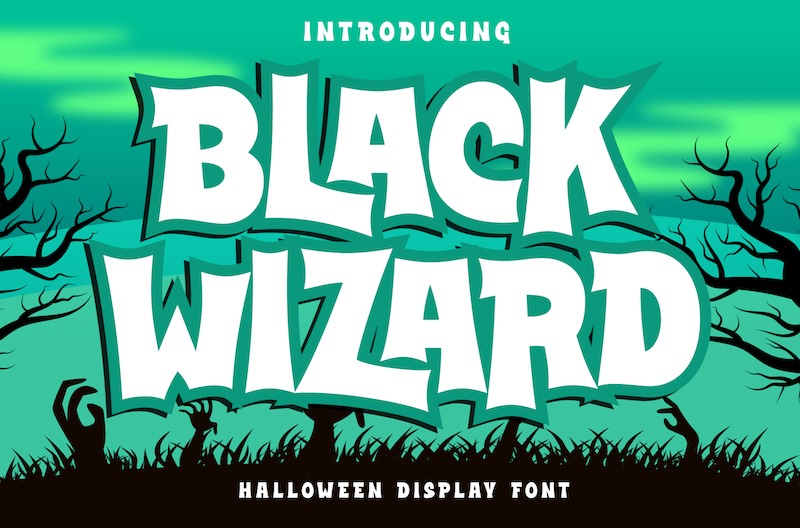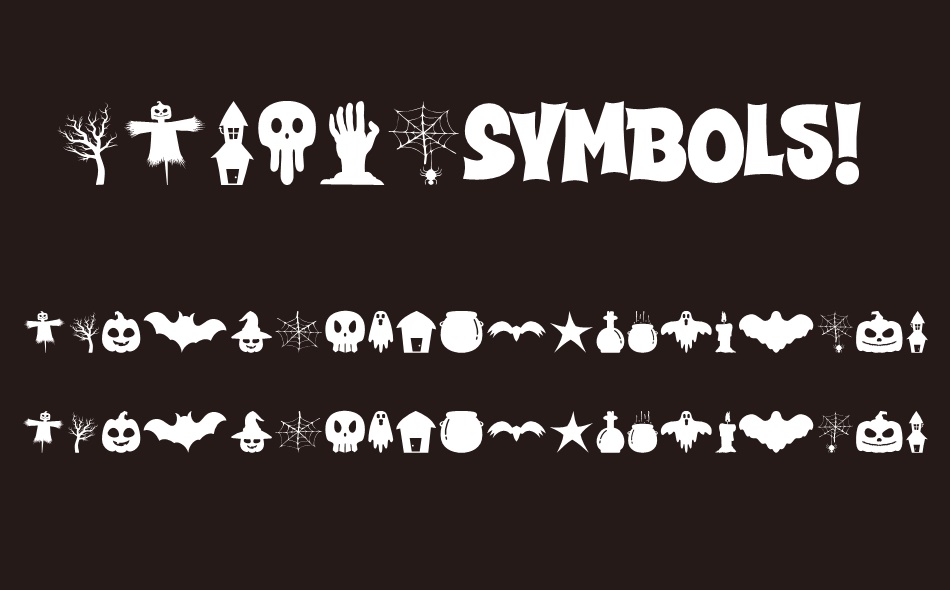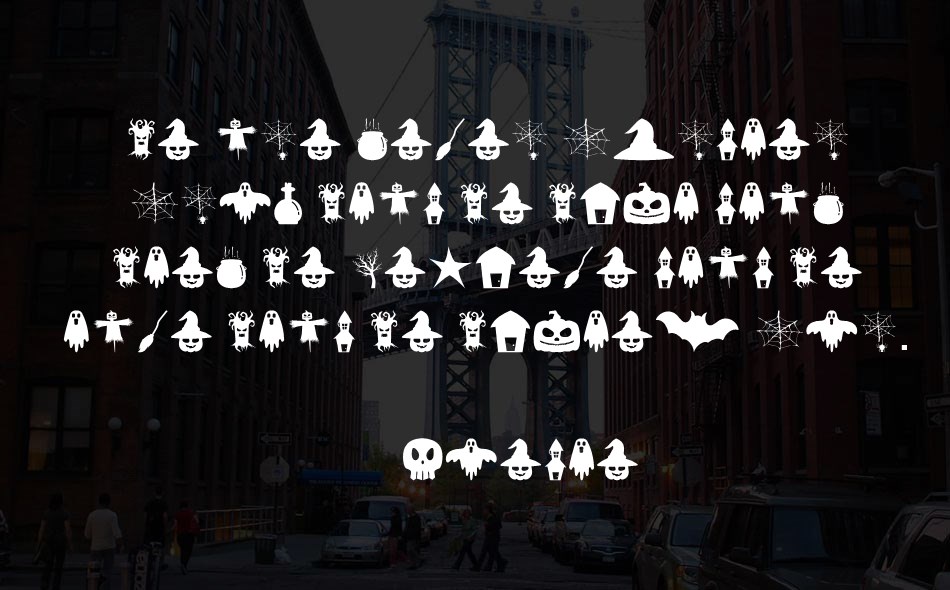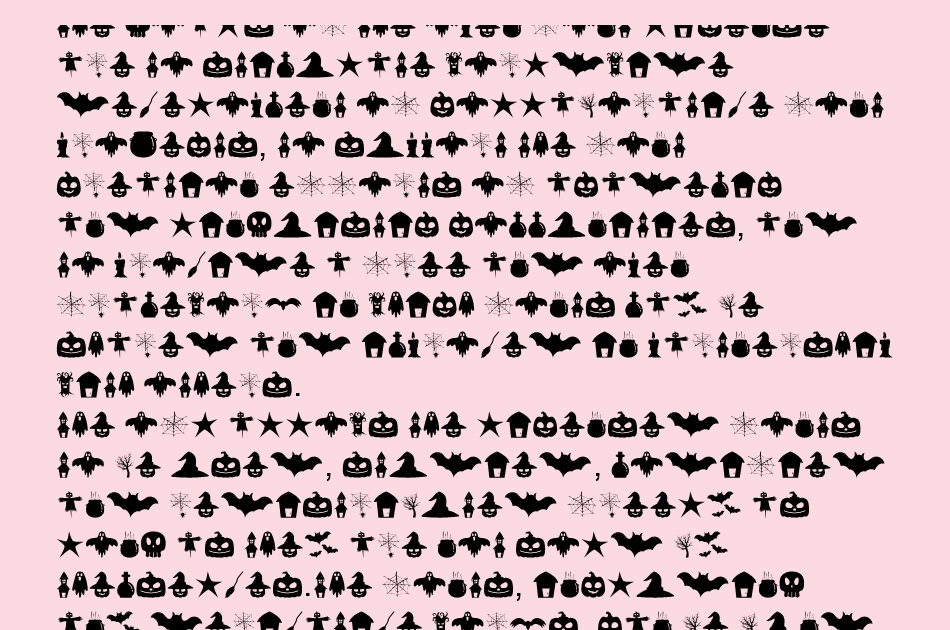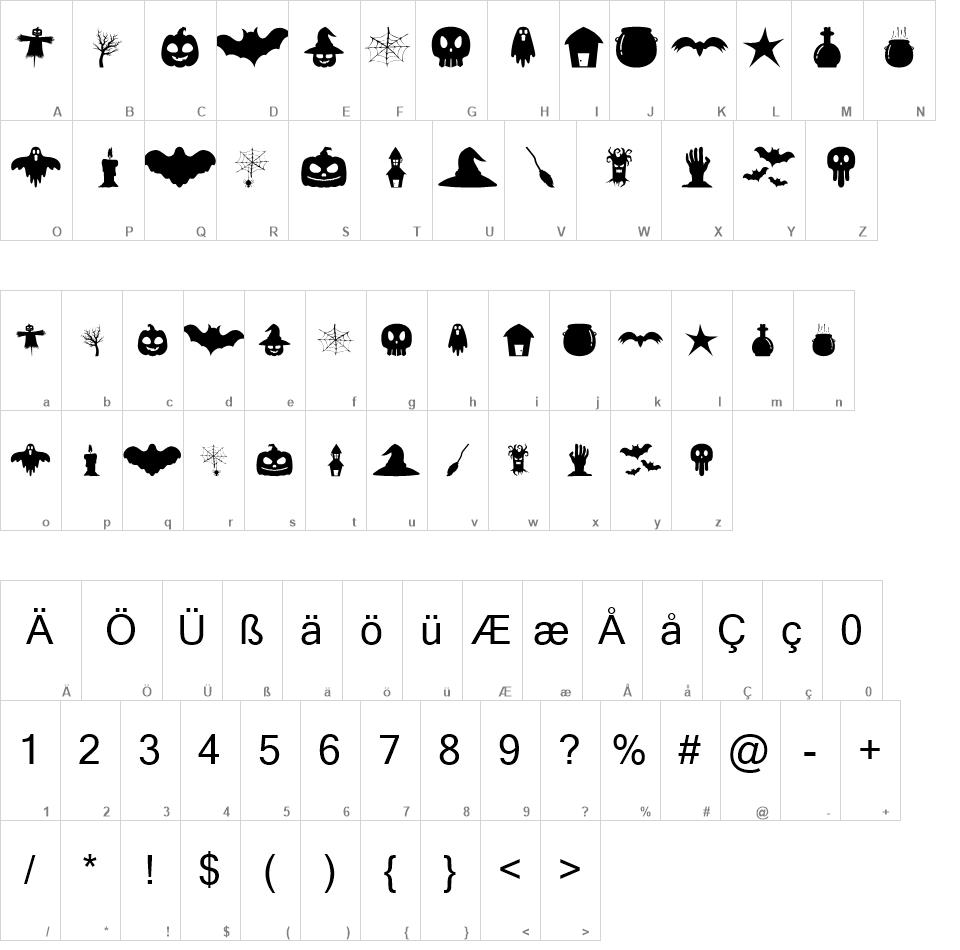
Black Wizard font
Black Wizard is a bold funky sans-serif font with a playful character
This font is ideal for Halloween-themed designs, as its wonky appearance can add an extra element of spookiness to your work.
Use the character anywhere in a word to make a Halloween symbol.
Example: ScareCrow.
Black Wizard is a bold and funky sans-serif font that is perfect for adding a touch of playfulness to your designs. With its wobbly and uneven letters, Black Wizard exudes a playful and cartoonish quality that is sure to make your project stand out.
This font is ideal for Halloween-themed designs, as its bold and scary appearance can add an extra element of spookiness to your work. But it's not all frights and scares - the funny and lighthearted nature of Black Wizard also bring a touch of humor.
Black Wizard comes in four styles: Regular, Italic, Straight, and Straight Italic, giving you plenty of options to choose from for your design needs. Additionally, a Symbols font is included with various Halloween-themed symbols that can be added to your text to enhance the spooky vibe.
Use the character ¤ anywhere in a word to make a Halloween symbol.
Example: Scare¤Crow.
To add different symbols like ghosts and bats, use multiple ¤ characters.
Example: Dark¤¤¤Night.
The font is built with advanced OpenType functionality and has a guaranteed top-notch quality, containing stylistic and contextual alternates, ligatures and more features; all to give you full control and customizability.
It has extensive lingual support, covering all Latin-based languages, from Northern Europe to South Africa, from America to South-East Asia.
It contains all characters and symbols you'll ever need, including all punctuation and numbers.